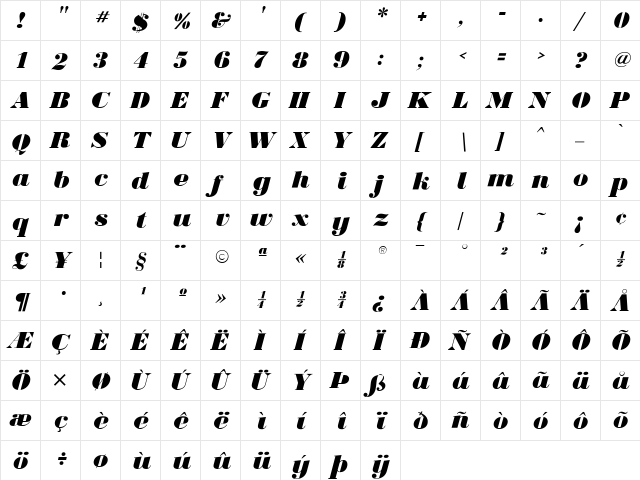
BodoniUltraFLF Medium Italic Font Preview
BodoniUltraFLF Medium Italic
Design Context for BodoniUltraFLF Typeface
BodoniUltraFLF takes a measured approach to typography — its balanced proportions and neutral character make it a reliable workhorse for both digital and print work. Its italic angle brings a sense of urgency and motion to the letterforms.
Pro Tip: Try BodoniUltraFLF for annotation and caption copy alongside an upright companion — the contrast in angle creates a dynamic but ordered typographic system.